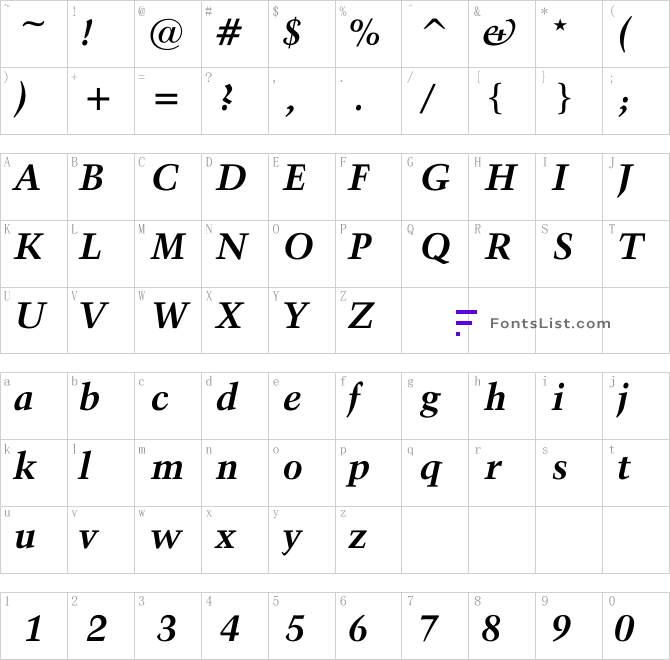
- Font Name:Activa-BoldItal
Activa-BoldItal-copy-1-.ttf is a very beautiful artistic font, Activa-BoldItal-copy-1-.ttf is widely used in the design and printing of various books and pictures,Activa-BoldItal-copy-1-.ttf has a strong visual impact,Activa-BoldItal-copy-1-.ttf is a commonly used font in newspapers, magazines and books, and is used in posters, e-commerce Poster design, store design, logo design, font design and other fields.Activa-BoldItal-copy-1-.